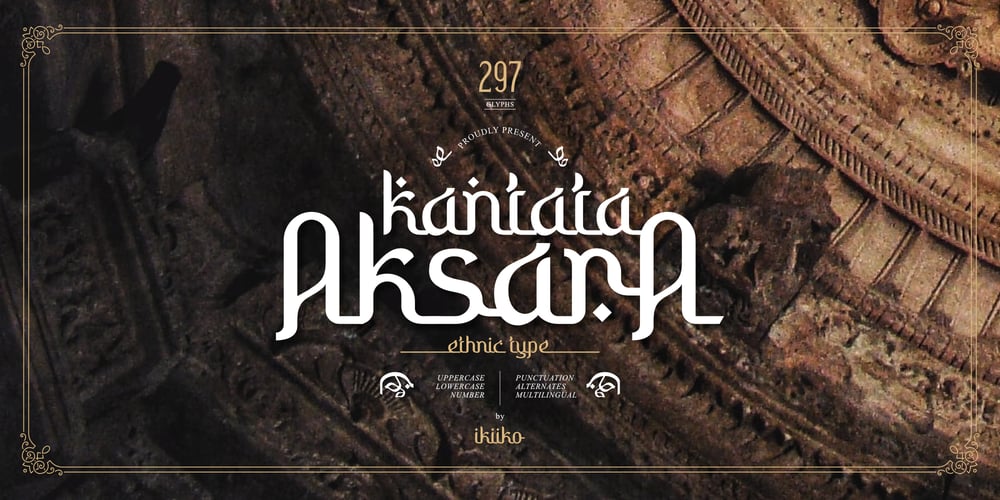
Kantata Aksara Font Family was designed by Wahyu Eka Prasetya, Andhika Pradana and published by IKIIKOWRK. Kantata Aksara contains 1 styles and family package options. Introducing Kantata Aksara – Ethnic Type, created by ikiiko.Kantata Aksara inspired by indian culture has beautiful gestures, with a touch of tradition. Kantata Aksara is a display typeface with unique shape and stylistic. This typeface is perfect for an cultural logo, ethnic stuff, yoga & meditation stuff, beauty product, packaging product , magazine, quotes, or simply as a stylish text overlay to any background image.What’s included? Uppercase & Lowercase Number & Punctuation Alternates Multilingual Support Works on PC & Mac Enjoy our font and if you have any questions, you can contact us by email : ikiikowrk@gmail.com